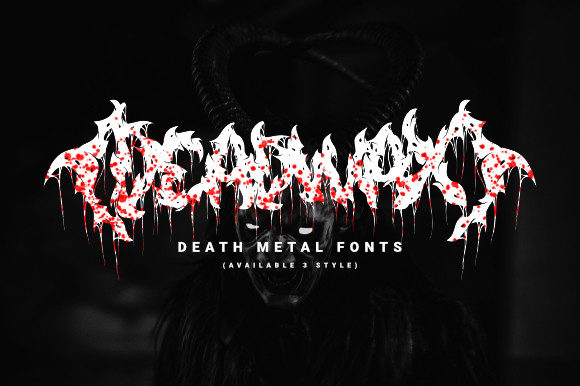
Journey into the realm of captivating typography with Deadwax, the blackletter font that exudes strength, confidence, and dynamism. This meticulously crafted font, brought to life by the artistic minds at Prioritype, is not just a collection of letters; it's an embodiment of character and style.
Picture this: your brand adorned with the striking presence of Deadwax. Its bold, assertive strokes command attention, leaving an indelible mark on the minds of your audience. Whether you're seeking to create a statement logo, eye-catching posters, or merchandise that speaks volumes, Deadwax is your font of choice.
Step into the world of Deadwax, where the lines dance with an eerie elegance, reminiscent of ancient manuscripts and forgotten tales. This font is a storyteller, weaving a narrative of intrigue and mystery into every design it graces. Unleash your creativity and let Deadwax ignite the imagination of your customers, transporting them to a realm where the ordinary becomes extraordinary.
More than just a font, Deadwax is an extension of your brand's personality, a visual symphony that harmonizes with your unique identity. It's the perfect font for brands seeking to stand out from the crowd, to make a statement that resonates with their audience.